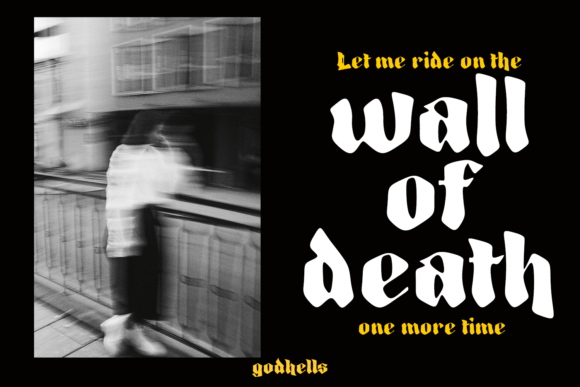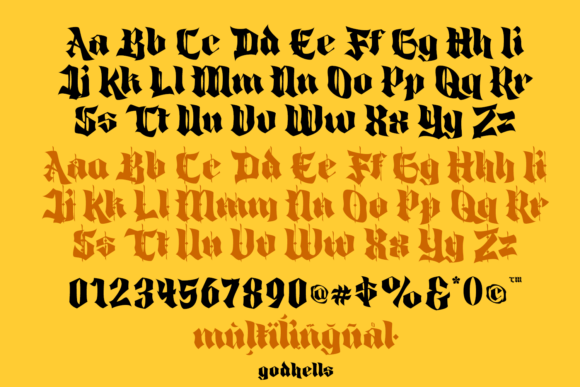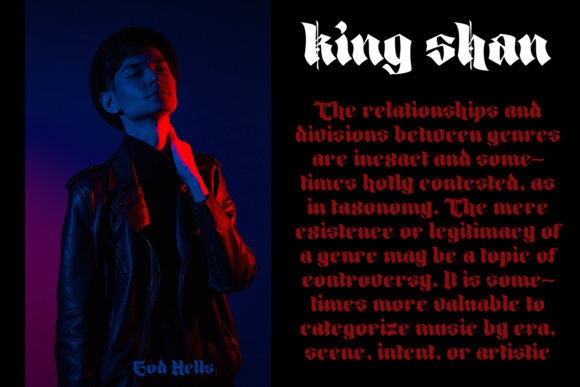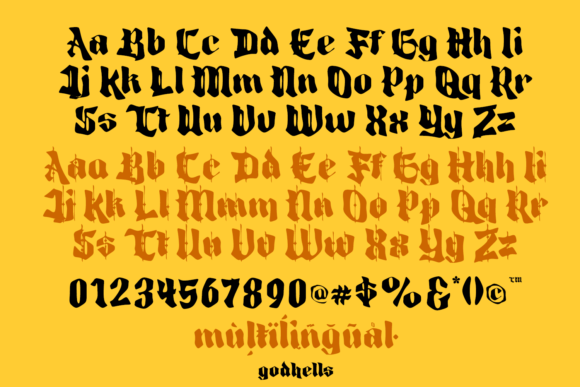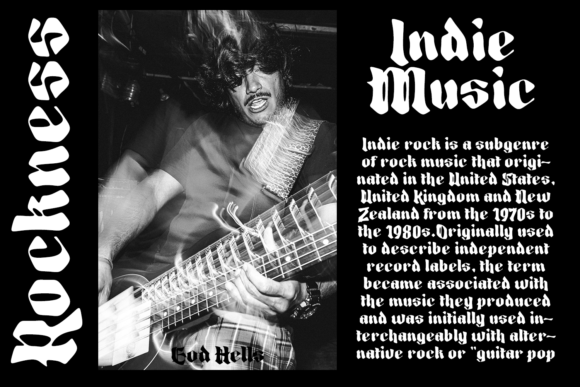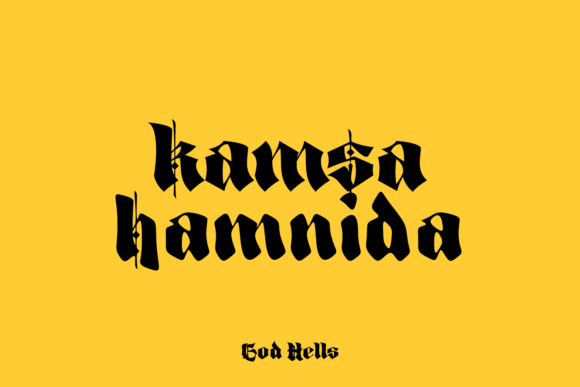
Introducing God Hells Font: The Ultimate Bold, Gothic-Style Blackletter Font
Are you tired of using the same old fonts for your designs? Do you want to add a touch of boldness and daringness to your projects? Look no further than God Hells Font, a stunning Gothic-style blackletter font that’s sure to impress. In this article, we’ll dive into the features and benefits of God Hells Font, and explore how you can use it to take your designs to the next level.
What is God Hells Font?
God Hells Font is a bold, Gothic-style blackletter font that’s designed to make a statement. Its stylish features and strong, daring typography make it perfect for product packaging, branding, and other projects that need to stand out from the crowd. Whether you’re a designer, craftsperson, or DIY enthusiast, God Hells Font is a versatile and powerful tool that can help you achieve your creative goals.
Key Features of God Hells Font
- Bold and striking design: God Hells Font features a bold, Gothic-style blackletter design that’s sure to grab attention.
- Stylish features: The font includes a range of stylish features, including intricate details and ornate flourishes.
- High-quality design: God Hells Font is designed to high standards, ensuring that it looks great in any context.
- Versatile: The font is suitable for a wide range of projects, from product packaging and branding to posters, flyers, and more.
Benefits of Using God Hells Font
So why should you choose God Hells Font for your next project? Here are just a few benefits of using this powerful font:
- Adds impact and drama: God Hells Font is designed to make a statement, adding impact and drama to your designs.
- Enhances branding and identity: The font’s bold, striking design makes it perfect for branding and identity projects, helping you to create a strong and memorable visual identity.
- Perfect for product packaging: God Hells Font is ideal for product packaging, adding a touch of sophistication and elegance to your designs.
How to Use God Hells Font
God Hells Font is easy to use and can be incorporated into a wide range of projects. Here are a few ideas to get you started:
- Product packaging: Use God Hells Font to add a touch of boldness and sophistication to your product packaging.
- Branding and identity: The font is perfect for branding and identity projects, helping you to create a strong and memorable visual identity.
- Posters and flyers: God Hells Font is ideal for posters and flyers, adding a touch of drama and impact to your designs.
- DIY projects: The font is also perfect for DIY enthusiasts, adding a touch of personality and style to your craft projects.
Tips and Tricks for Getting the Most Out of God Hells Font
Here are a few tips and tricks for getting the most out of God Hells Font:
- Experiment with different colors: God Hells Font looks great in a range of colors, so don’t be afraid to experiment and find the perfect hue for your design.
- Use it sparingly: While God Hells Font is bold and striking, it’s best used sparingly to avoid overwhelming the senses.
- Pair it with other fonts: God Hells Font pairs well with a range of other fonts, so don’t be afraid to experiment and find the perfect combination for your design.
In conclusion, God Hells Font is a powerful and versatile font that’s perfect for designers, craftspersons, and DIY enthusiasts. Its bold, Gothic-style blackletter design and stylish features make it ideal for product packaging, branding, and other projects that need strong and daring typography. With its high-quality design, ease of use, and range of benefits, God Hells Font is a must-have font for anyone looking to add a touch of boldness and sophistication to their designs.